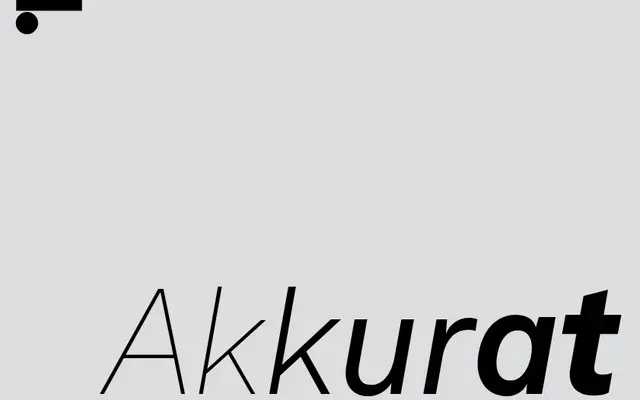
LL Akkurat
Lineto · Laurenz Brunner · 2004
A Swiss neo-modernist grotesque by Laurenz Brunner, first released in 2004, that helped revive interest in neutral, precision-driven sans-serifs in contemporary type design.
Drawn while Brunner was studying at Central Saint Martins and published by Lineto in April 2004, LL Akkurat has since expanded from three weights to five, with a companion monospaced family and italics. The typeface's reach was extended substantially in 2019 with six new scripts: Cyrillic, Greek, Hebrew, Arabic, Devanagari and Vietnamese, each developed by specialist designers under Brunner's direction. Its static construction and deliberate refusal of trend or elegance have made it a durable workhorse for identity and editorial work.
A Swiss neo-modernist grotesque with static construction, positioned in the lineage of neutral European sans-serifs. Lineto themselves describe it as embodying technical precision and neutrality in the tradition of Swiss graphic values.